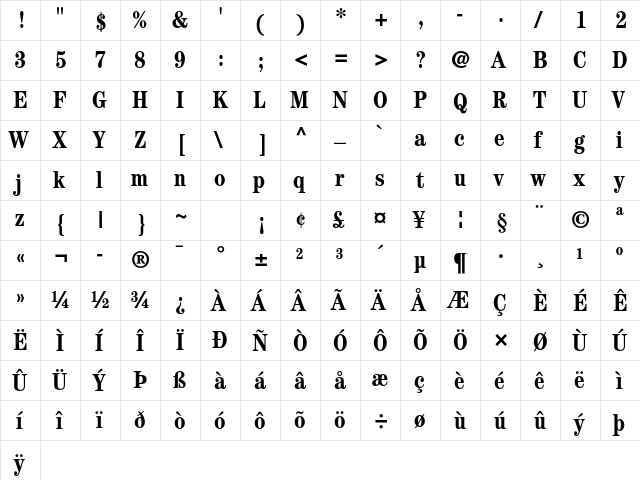
ITC Century Std Bold Condensed
| Designer | Tony Stan |
Design Context for ITC Century Std Typeface
ITC Century Std offers clean, dependable letterforms without strong stylistic allegiance, making it a practical choice for designers who need flexibility. The heavy weight commands attention and anchors typographic hierarchies. Its narrow stance lets it pack a punch even in space-constrained designs.